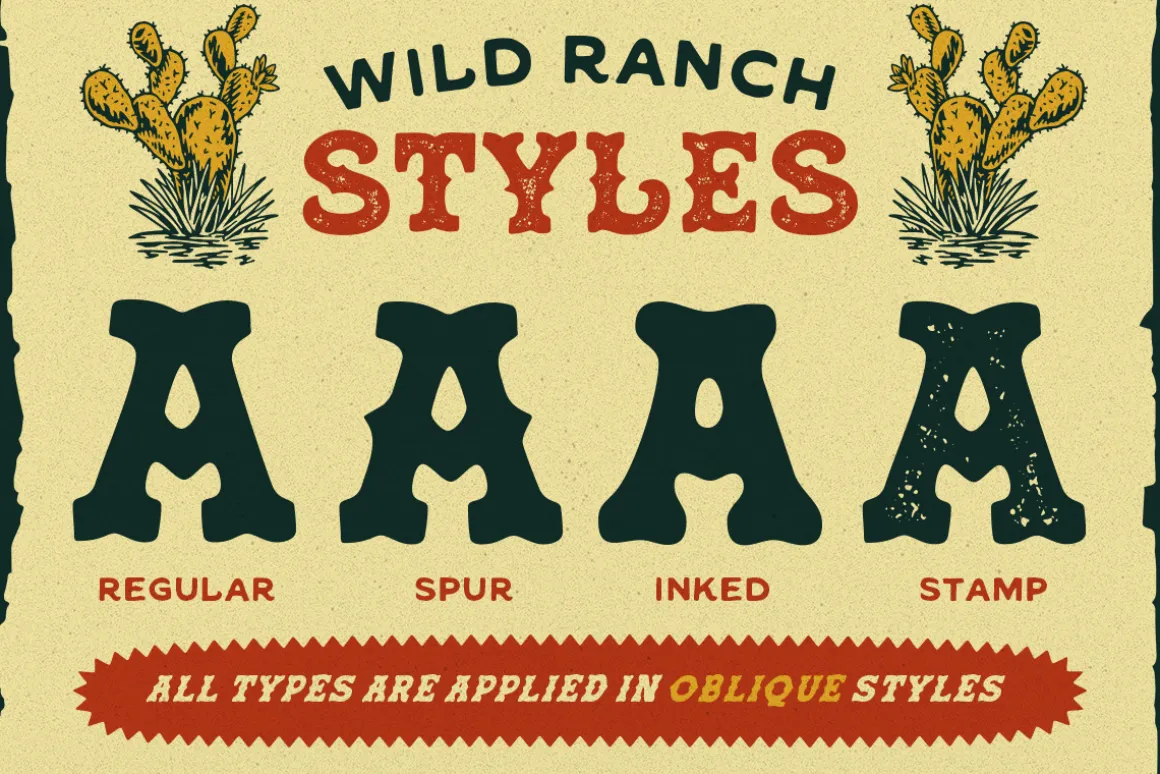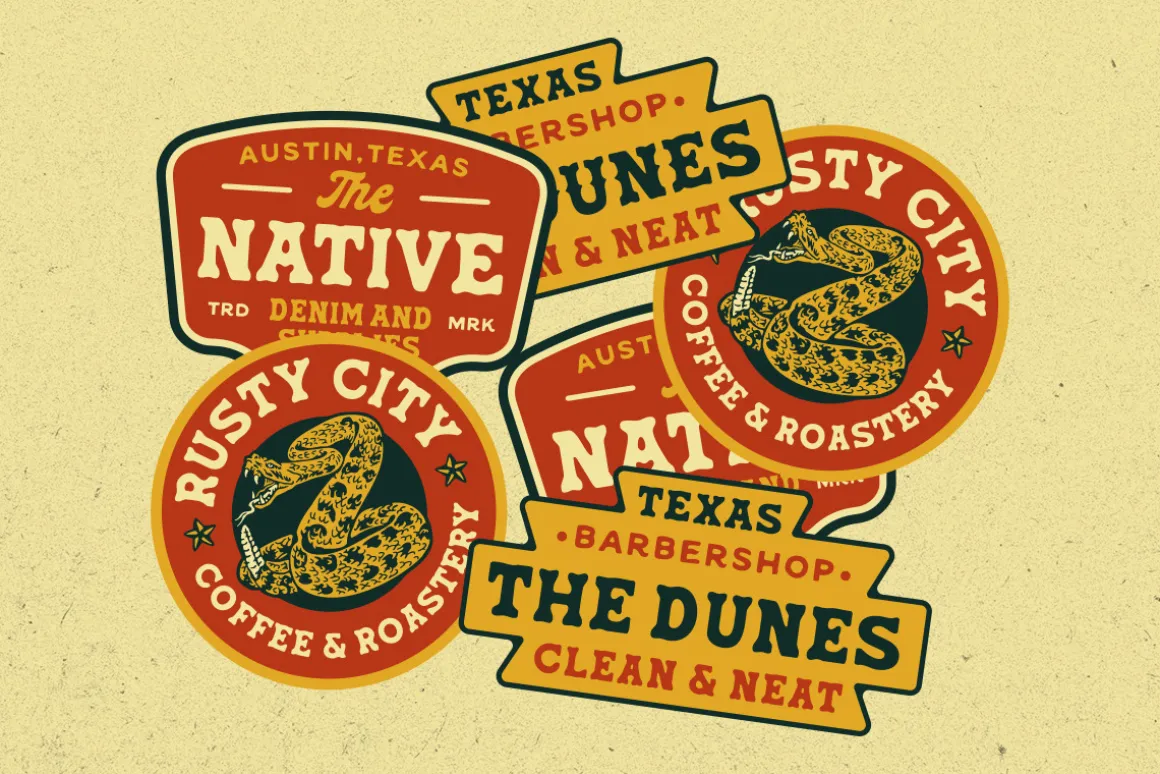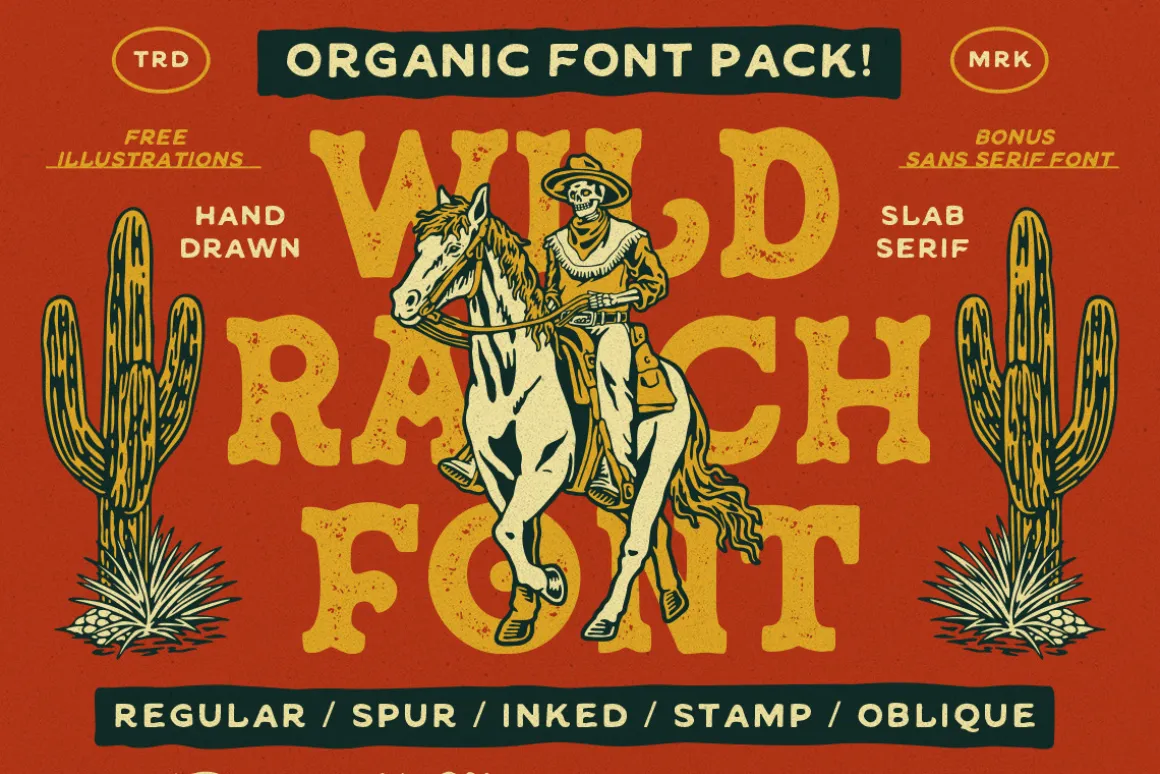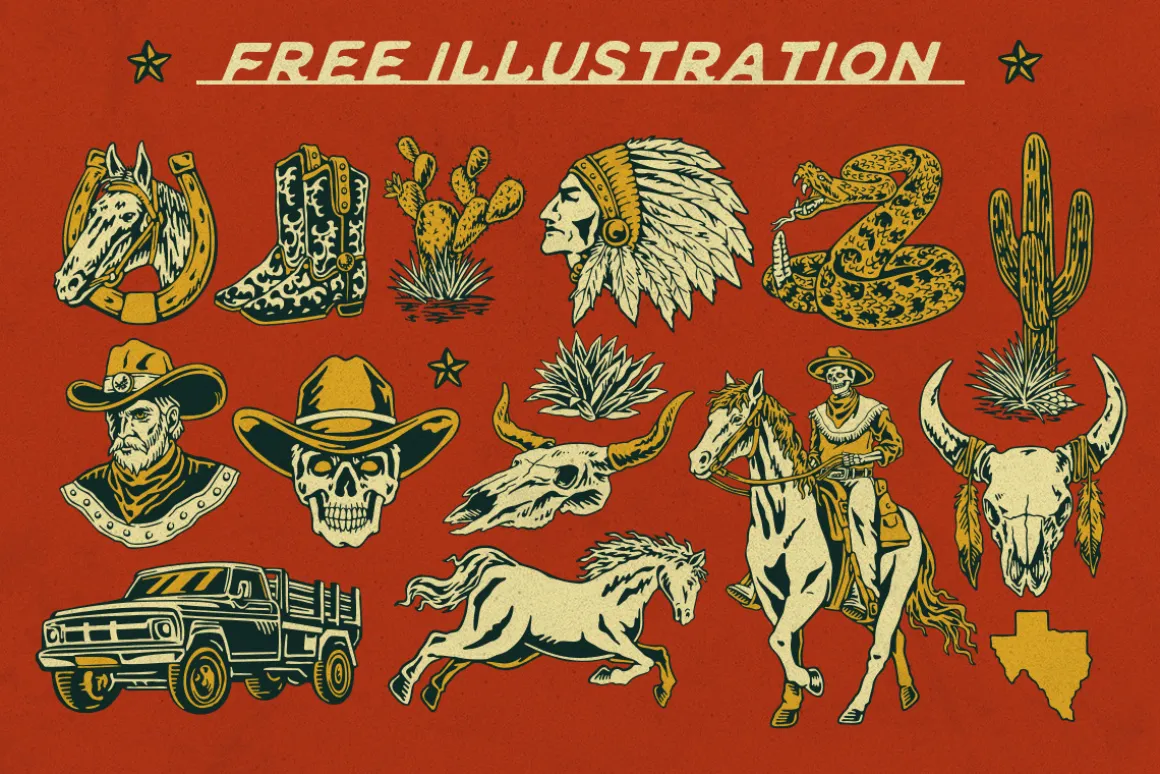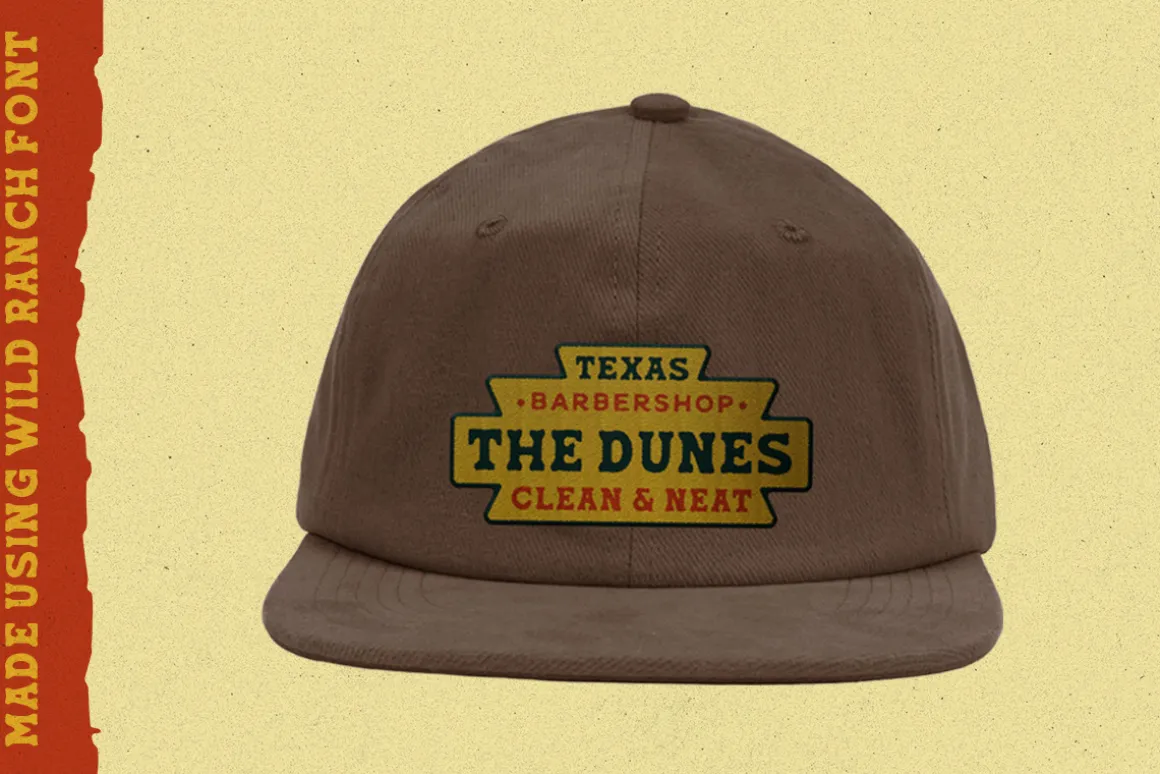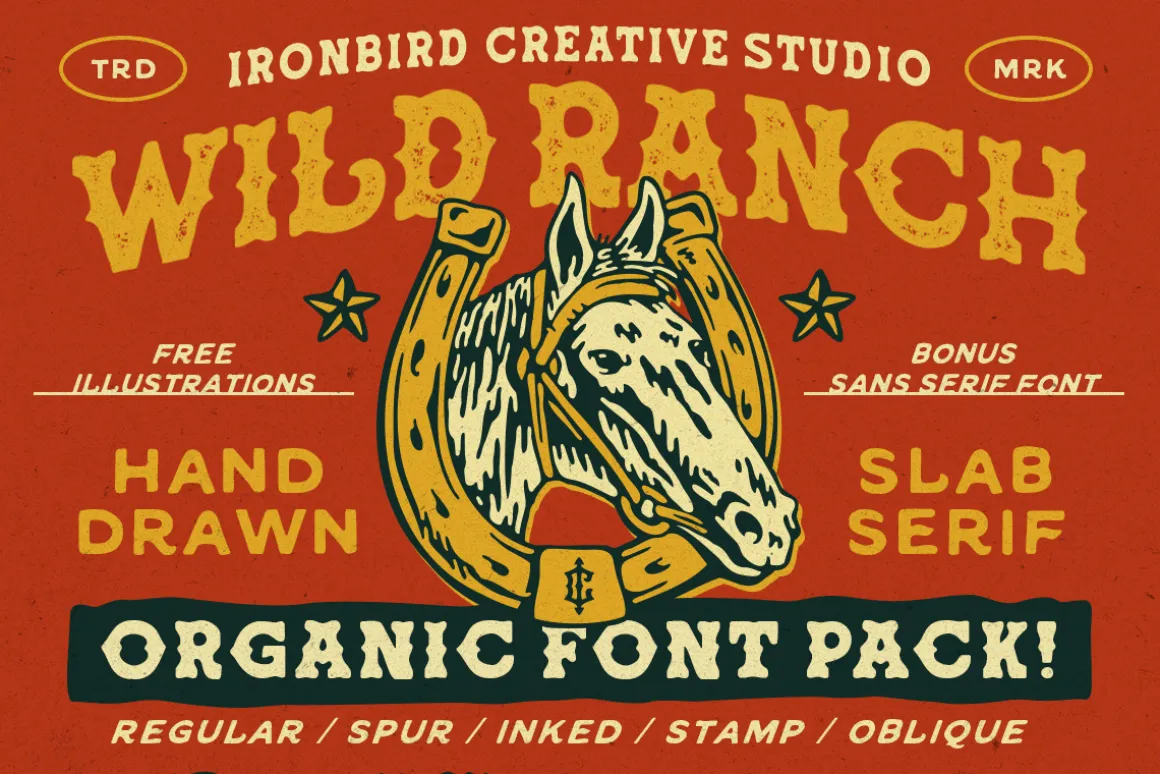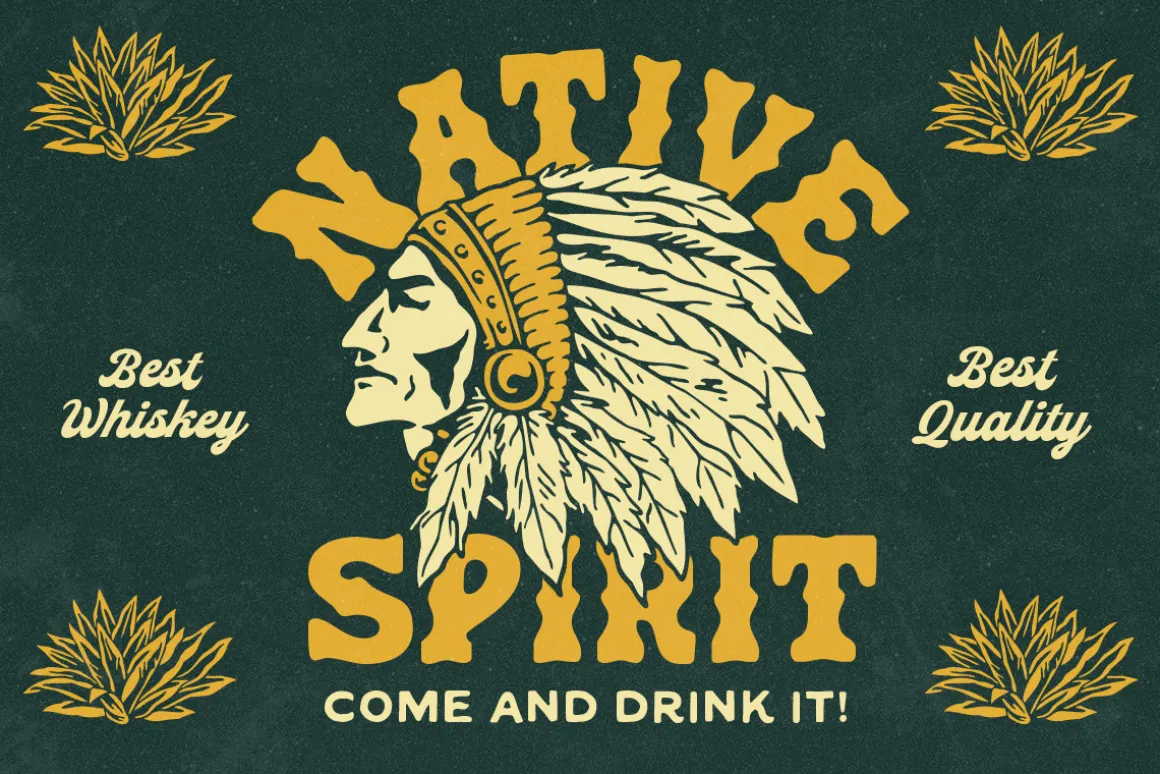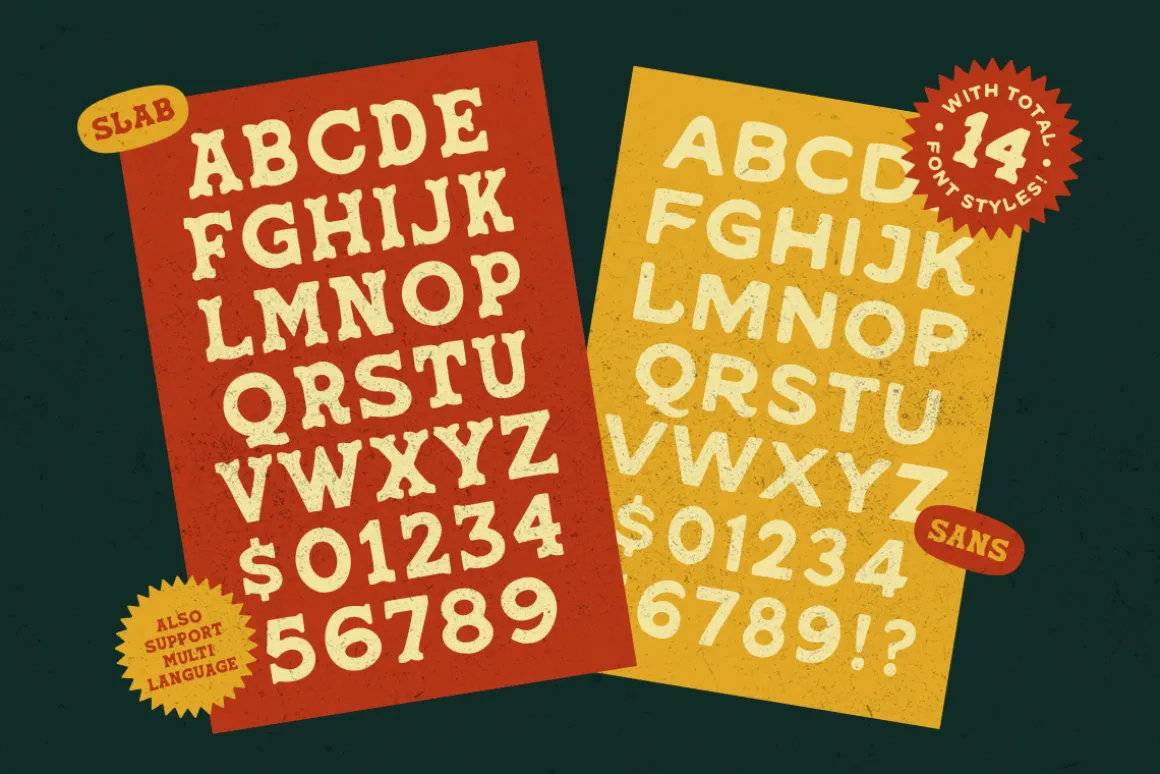
Wild Ranch is a bold hand drawn slab serif typeface. This item consist of 14 FONTS in various styles which you can play around with it and also come with EXTRA ILLUSTRATION to make better design. This typefaces is perfect for people looking for vintage aesthetic and organic feel or design needs with a touch of classic western.